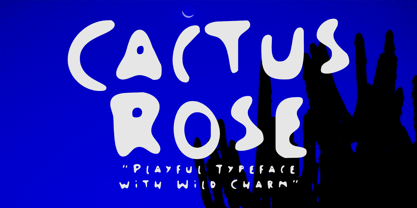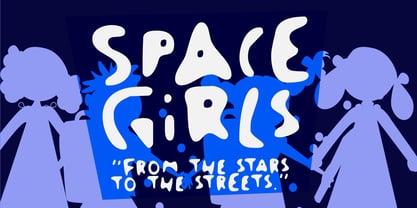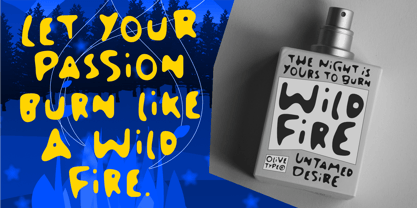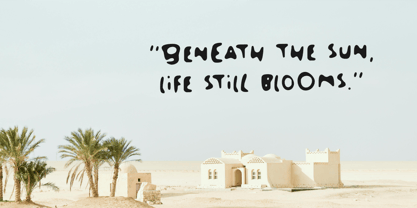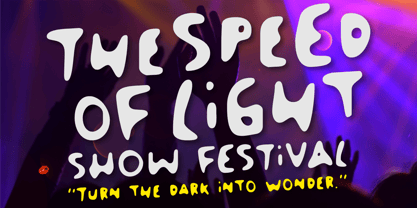
Cactus Rose
by Olivetype
The Cactus Rose Font Family was designed by Nurul Hidayani and published by Olivetype. Cactus Rose contains 1 styles. More about this family
Cactus Rose is a vibrant handwritten typeface that marries rustic desert motifs with playful elegance, making it an ideal choice for posters, logos, movie titles, packaging, and creative branding endeavors. Drawn from the resilience of desert cacti and the delicate beauty of blooming roses, this font offers a blend of bold character and unique charm in every letter. Whether you're crafting a cinematic movie poster, designing a logo with a personal touch, or creating standout merchandise infused with rustic aesthetics, Cactus Rose adapts beautifully to any theme. Its handwritten strokes lend an authentic, organic feel to your text, while its dynamic appeal ensures memorability. Perfect for Western-themed designs, adventure graphics, modern branding, and social media posts, Cactus Rose thrives in both digital and print applications. Each curve and stroke is meticulously crafted to convey impact, personality, and style. Infuse your projects with a font that embodies the fierce spirit of the desert and the elegant nature of a rose. With Cactus Rose, your designs won't merely stand out—they will truly blossom.
Designers: Nurul Hidayani
Foundry: Olivetype